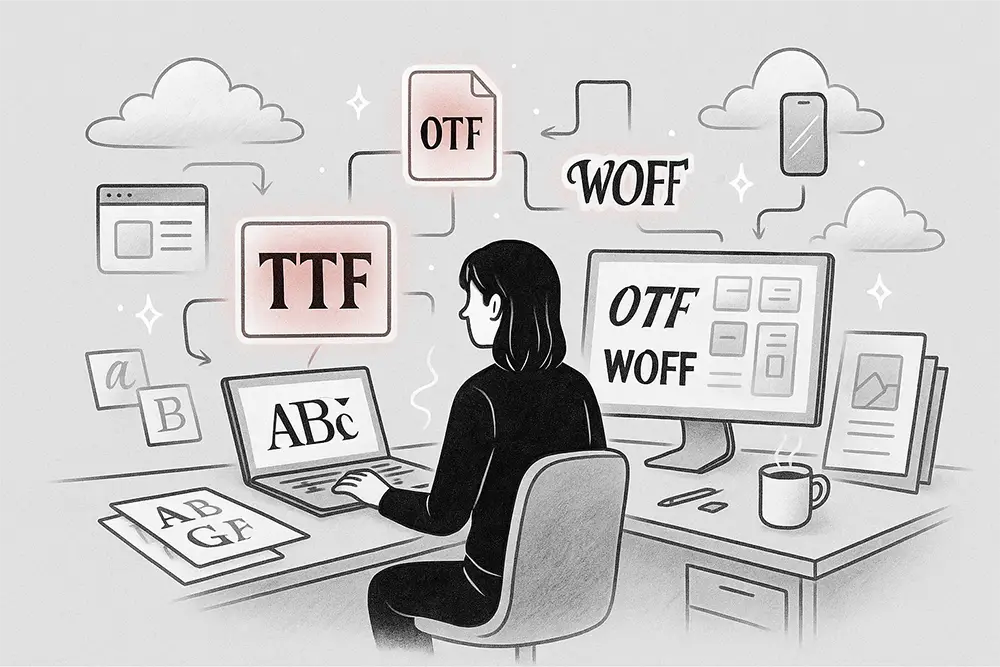
You’ve just bought a premium font. You’re ready to make your design shine, but then—three unfamiliar file types greet you: TTF, OTF, and WOFF. Which one should you use for your website? For your logo? For your brochure?
This confusion isn’t just an inconvenience—it can lead to blurry text, slow loading websites, or even licensing headaches. That’s why today, we’ll break down font file types explained in the simplest way possible while giving you real-world tips for web and print success.
TrueType Font (TTF) is one of the most widely recognized font formats, developed by Apple and Microsoft in the late 1980s. Its biggest strength? Compatibility. Whether you’re designing in Photoshop, printing a magazine, or creating a PowerPoint presentation, TTF usually works without issues.
Best Use Cases for TTF:
However, TTFs can be slightly larger in file size compared to modern formats, which might slow down your website loading speed if not optimized.
OpenType Font (OTF) is like the upgraded version of TTF. Built by Microsoft and Adobe, OTFs support advanced typographic features such as:
If your design project demands personality and detail, OTF is the way to go. It’s especially popular among branding agencies and print designers who want their typography to stand out.
Best Use Cases for OTF:
WOFF was specifically made for the web. It’s lightweight, compressed, and optimized for fast loading. Browsers love it because it keeps your website looking consistent without slowing down performance.
Best Use Cases for WOFF:
Unlike TTF and OTF, WOFF isn’t meant for print—it’s purely for online use. So, if you’re uploading fonts to your site, make sure you have the WOFF version for speed and SEO benefits.
The key is to match the format to your project type:
Project Type | Recommended Format | Why It Works Best |
---|---|---|
Logo Design | OTF | Extra glyph features & precision |
Print Brochure | TTF or OTF | High compatibility with printers |
Website Headings | WOFF | Fast loading, SEO-friendly |
Social Media Posts | OTF | More creative flexibility |
E-commerce UI | WOFF | Small size, consistent rendering |
When I started selling fonts, I underestimated how often clients would ask, “Which file should I use?” Now I realize that explaining font formats is part of delivering value. A confused client can become a dissatisfied one, even if the font quality is top-notch.
One insight I’ve learned: Always give them exactly what they need for their platform. For instance, if they’re a Shopify store owner, WOFF is non-negotiable. If they’re a wedding stationery designer, OTF will give them the creative extras they love.
As branding expert Debbie Millman said:
“Typography is the craft of endowing human language with a durable visual form.”
Your choice of font format isn’t just technical—it’s a branding decision that affects how people experience your message.
Understanding font file types explained: TTF, OTF, WOFF means you can choose confidently and avoid costly mistakes. The right format ensures your designs look sharp, load fast, and convey your brand exactly as you envision it.